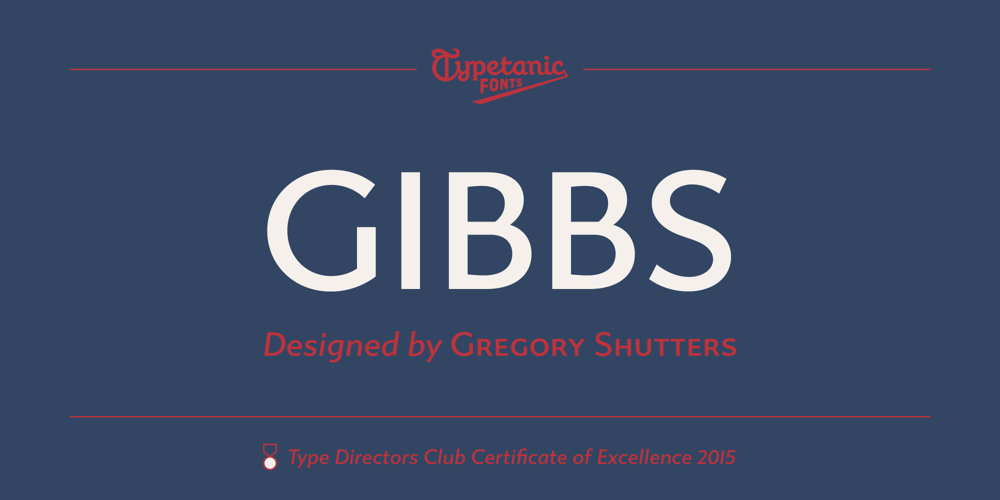
Gibbs Font Family was designed by Gregory Shutters and published by Typetanic Fonts. Gibbs contains 13 styles and family package options. Gibbs is a tough, sophisticated sans, inspired by the unique cast aluminum signs found on board the 1950s luxury liner SS United States and named for its designer, William Francis Gibbs. The design is appropriately transatlantic, somewhere in between industrial American vernacular lettering and English humanist styles. The result is both uniquely stylish and comfortably readable in both text and display sizes. Gibbs received a Type Directors Club award for excellence in 2015.